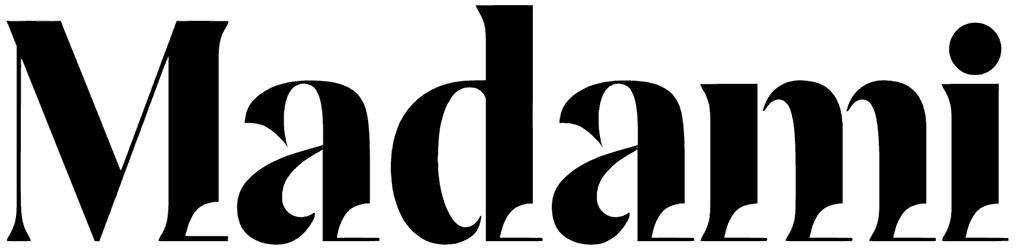
Madami Font
Go beyond others in typography with the fascinating features of this serif font, bold and thick letters with a delicate serif end design. Luckily, Madami is within easy reach of a complete alphabet set to incorporate any graphics in its nostalgia genre.